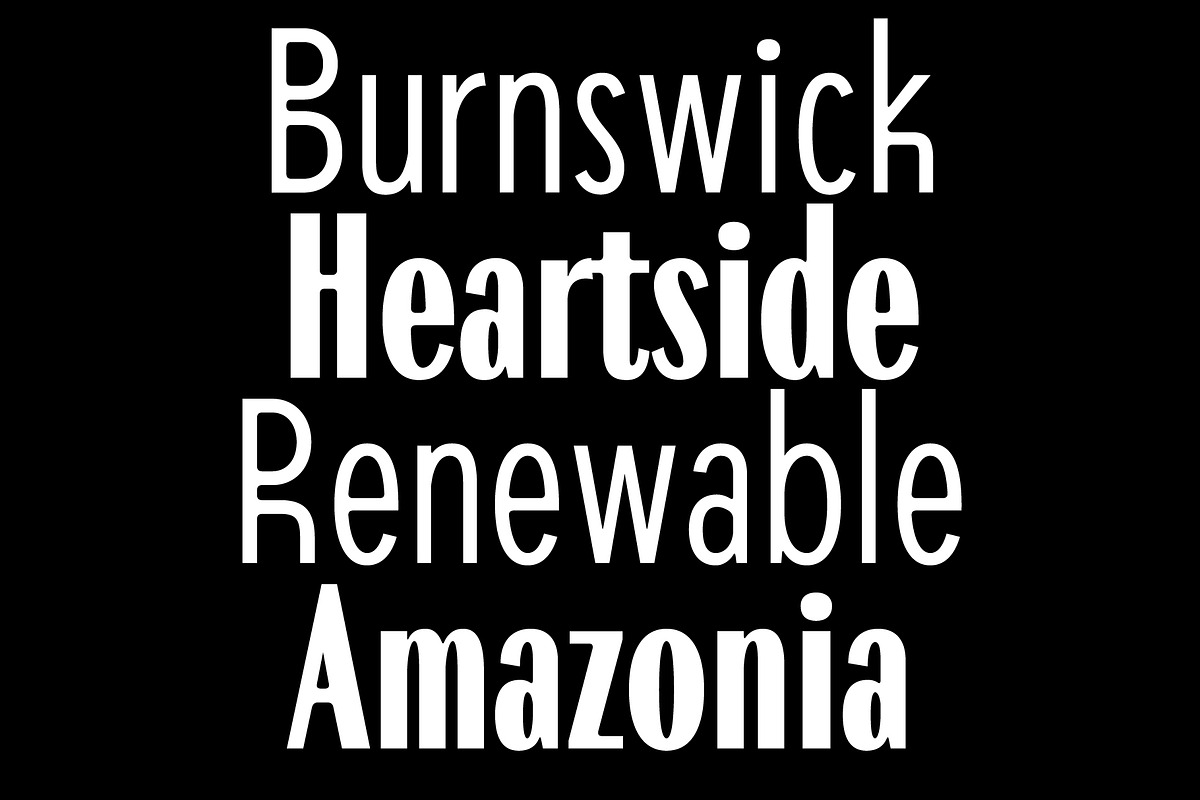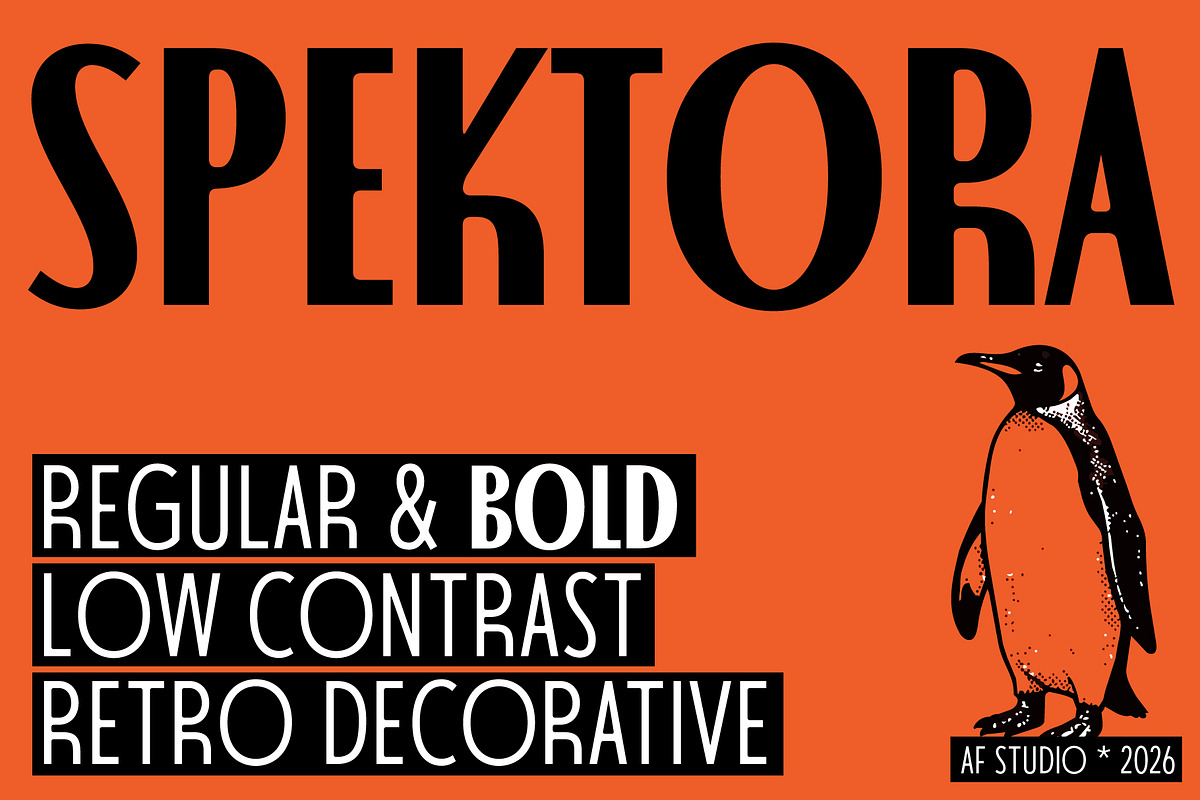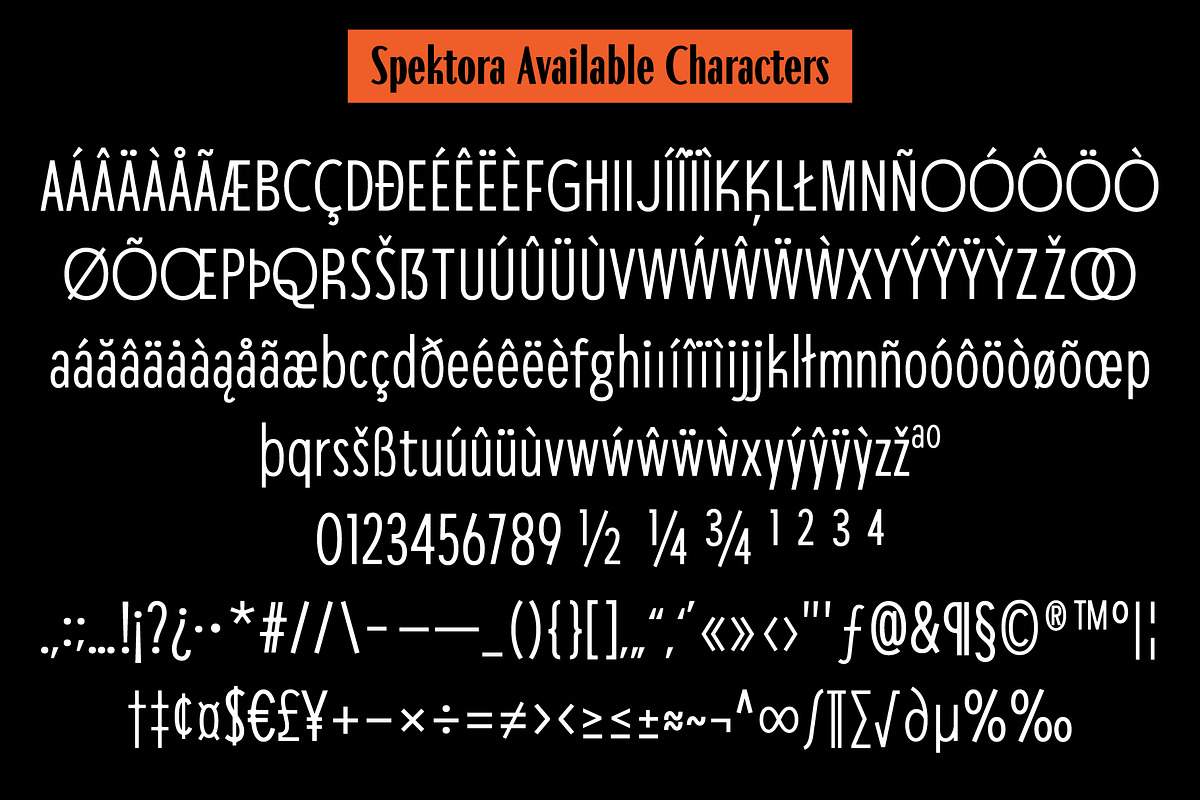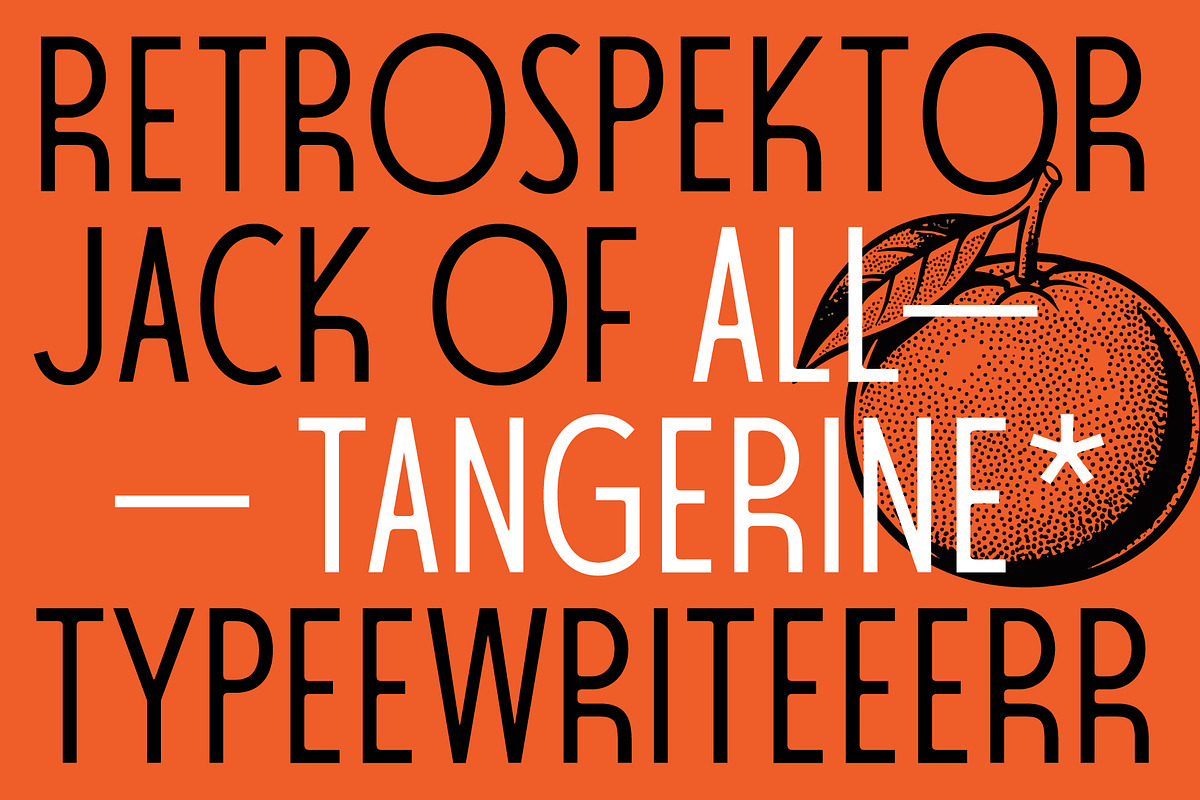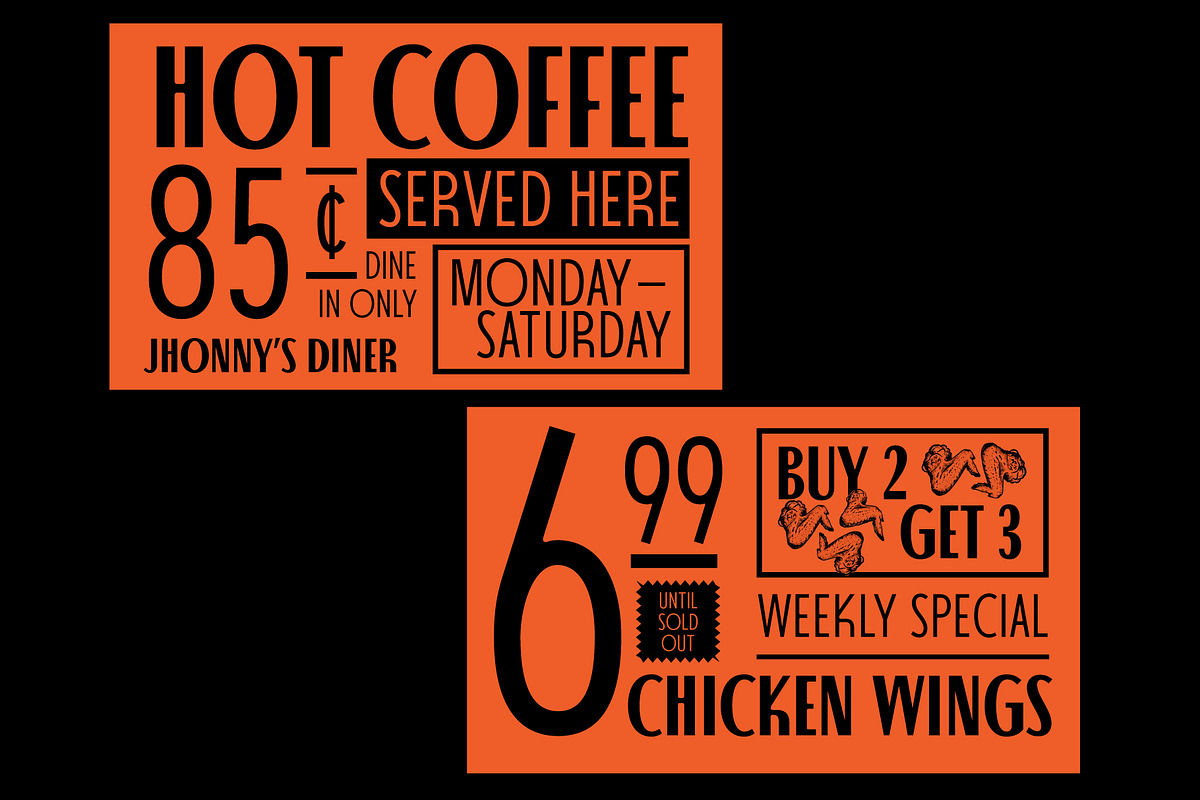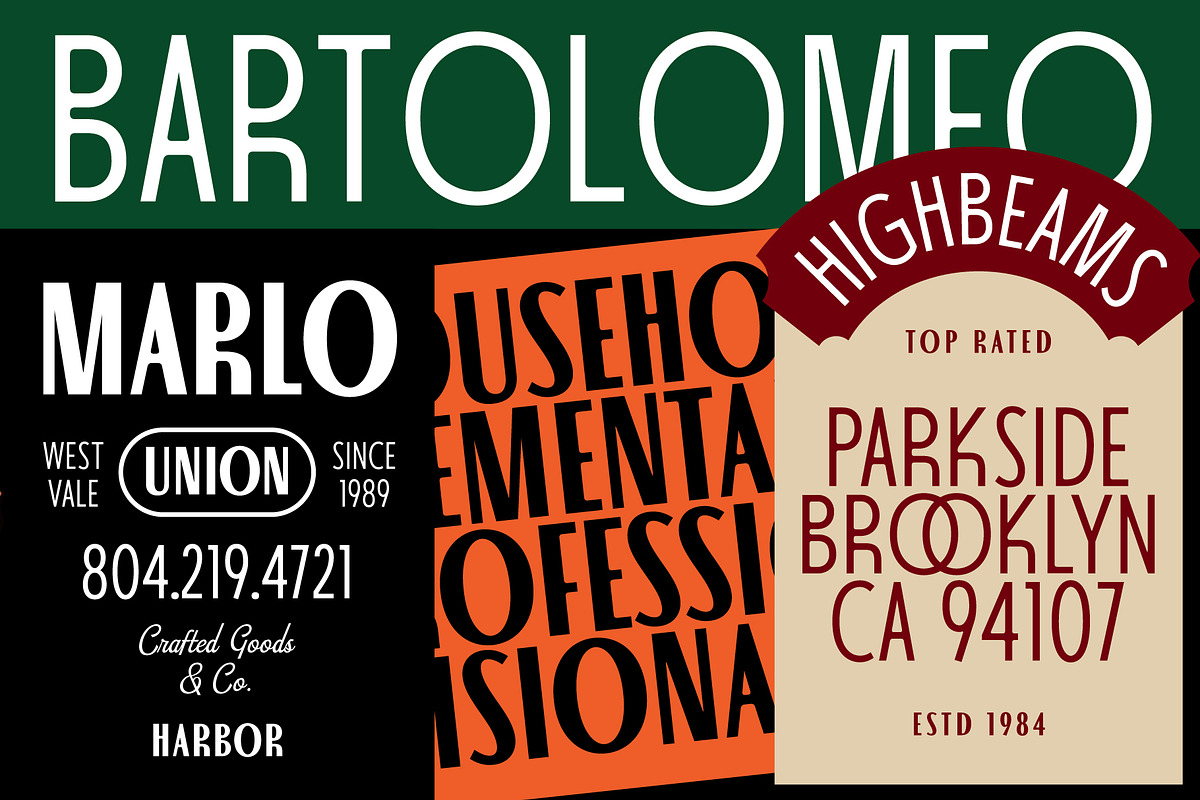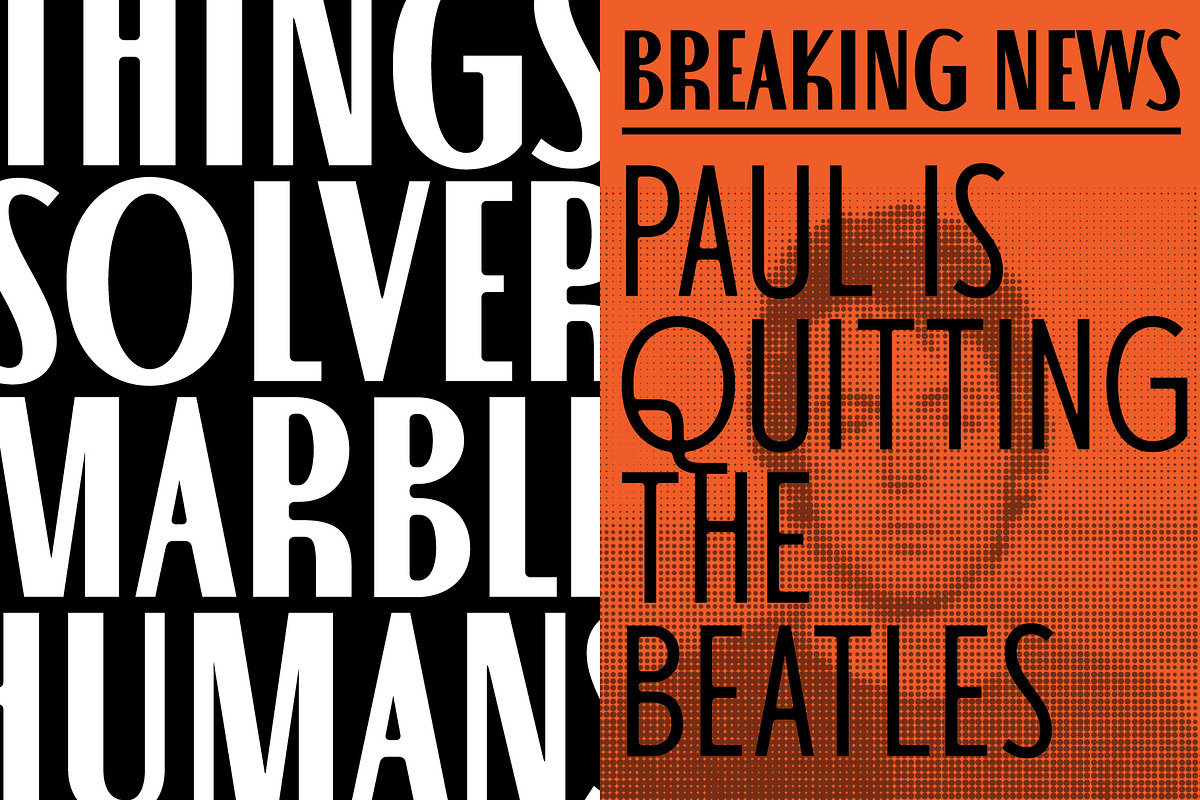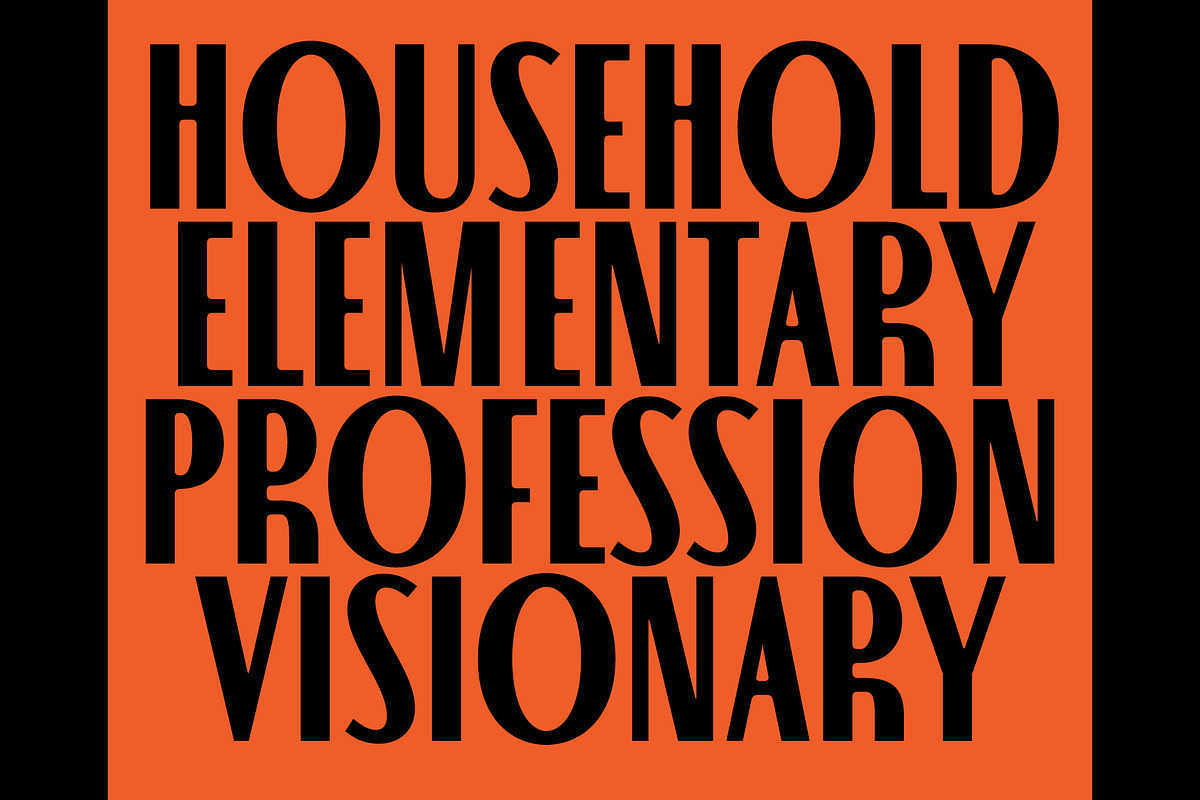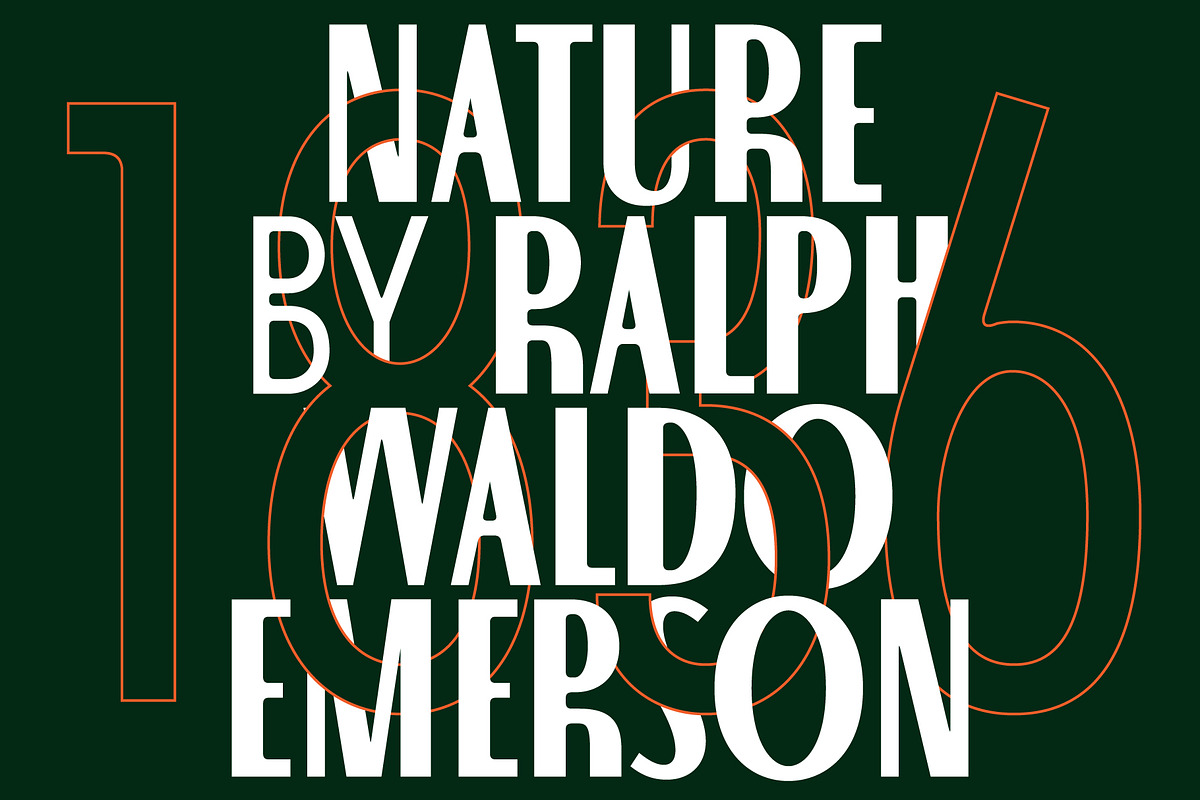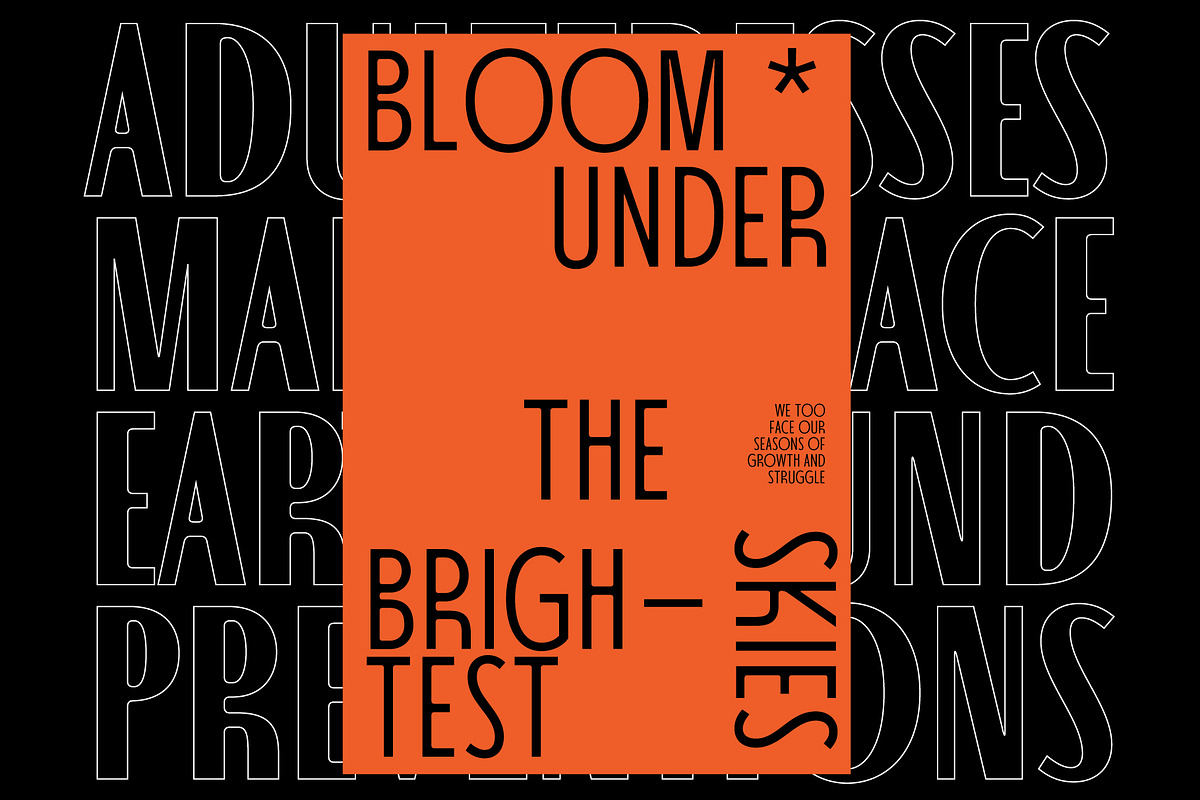
Spektora
Spektora is a condensed display font with a retro feel and a bold personality. Tall, narrow, and full of character, it was made for designs that need to catch attention without trying too hard. The low contrast and decorative details give it a vintage mood, while the clean structure keeps it feeling fresh and easy to use.
It works naturally for posters, menus, packaging, branding, headlines, labels, or anything that needs a little extra attitude. Spektora comes in Regular and Bold, so mixing sizes and creating contrast feels simple and consistent. Add it big, stack it tight, or let it take over the page. It likes to be seen.